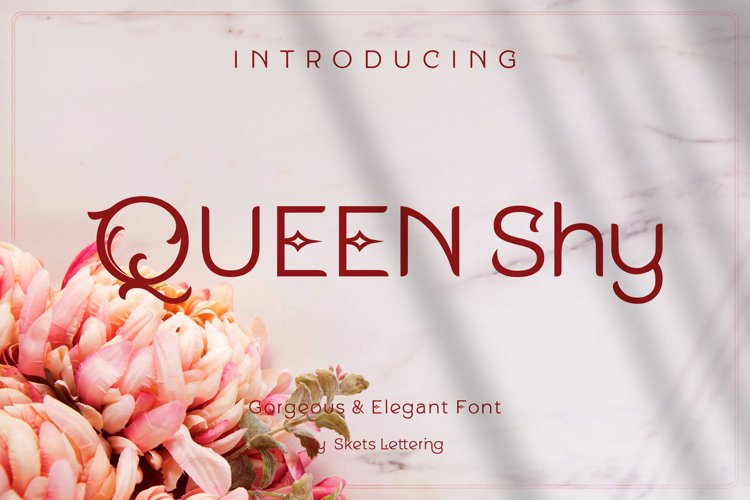
Queen Shy
Hello I want to introduce my second font, this font is included in the san serif font category but I added alternative decorative styles in it and many alternative character choices in this font package, before I thought of making a font that could be applied in various media and design needs, this font is very beautiful, looks charming and elegant, suitable for logotype, magazine, advertising, invitation, poster, print design, headline, and other design needs.